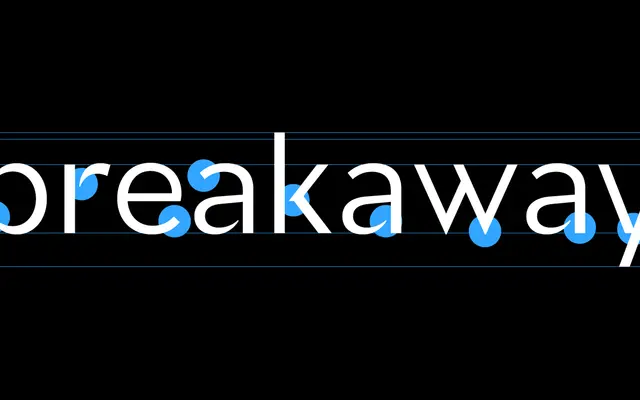
Glance Sans
A geometric sans with a distinctive non-joining stroke detail that creates visible gaps between strokes and stems, giving it a controlled, urban energy across eight weights.
Companion to Glance Slab, this family shares the same design principle of intentionally disconnected strokes that stop short of their stems, producing a subtle stencil-like quality without the bulk of detached serifs. Eight weights run from Thin to Black with a full set of individually drawn italics that reference classic italic construction rather than simple slanting. Each style carries 650+ glyphs including six figure sets, circled numerals, circled arrows and dual stylistic versions of currency symbols, making it particularly suited to branding, wayfinding and sports-themed work.
Geometric in construction with a distinctive non-joining stroke principle where strokes intentionally leave visible gaps at stems, creating a quasi-stencil effect without detached serifs.